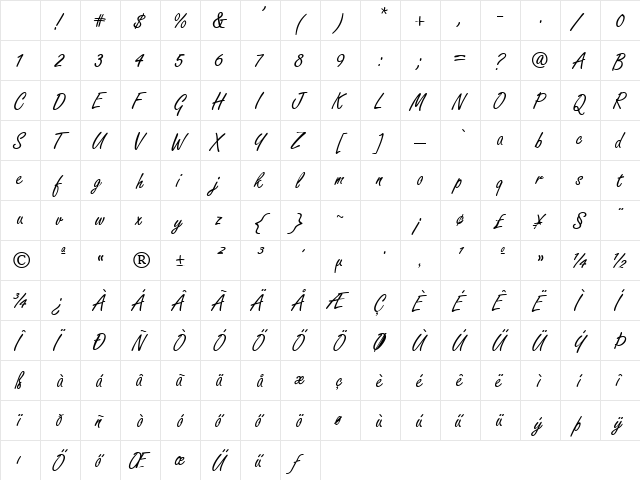
Complete HFreeport Normal glyph index. Displaying only characters natively supported by HFreeport Normal font.
HFreeport is a composed and adaptable typeface that performs quietly and consistently across a wide range of design contexts.